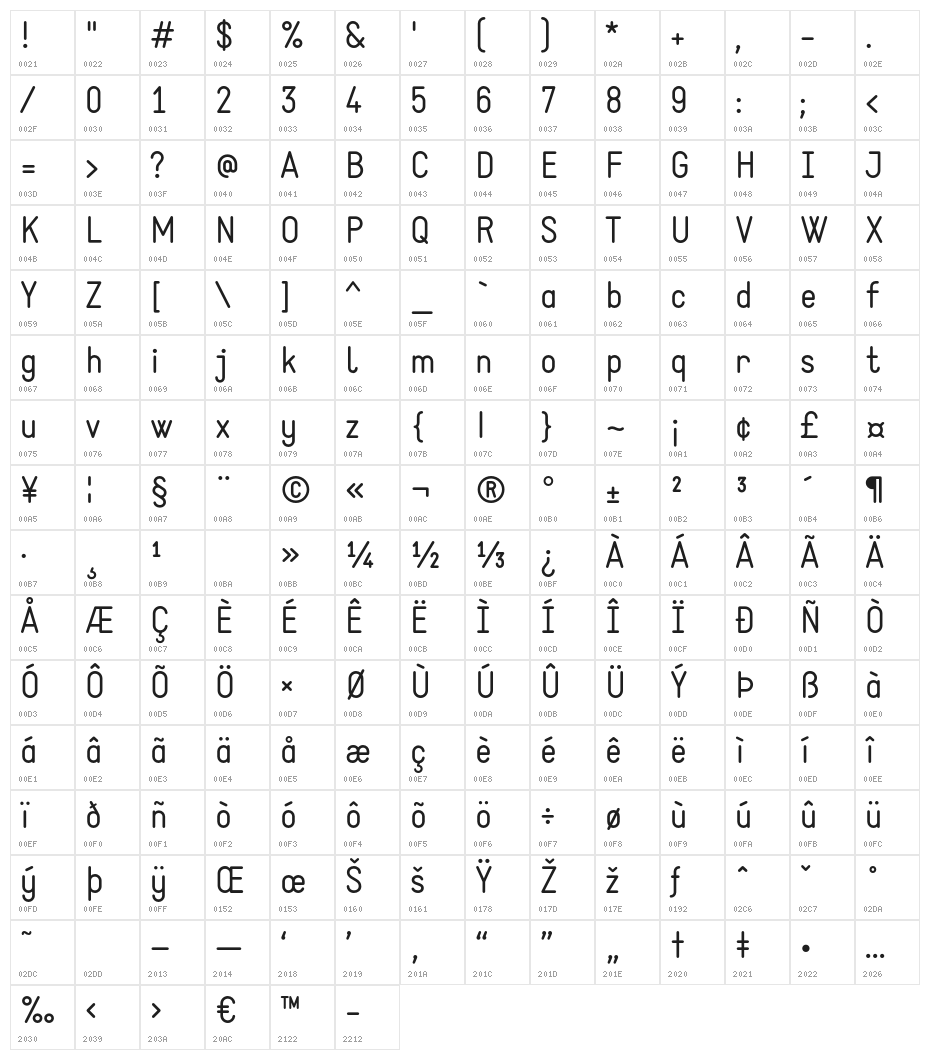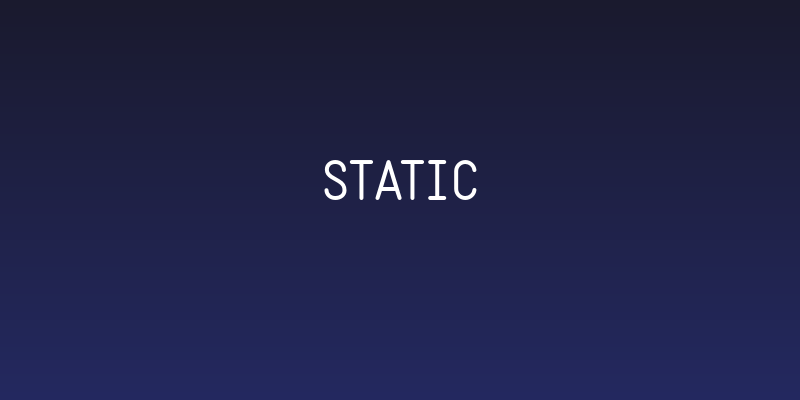
Static Font
✎ Sans Serif
| Anwendungsfall | Headlines, Body text, Logos |
| Vorgeschlagene Projekte | Ideal for branding, web design, user interfaces, and print materials where a modern and friendly aesthetic is desired. |